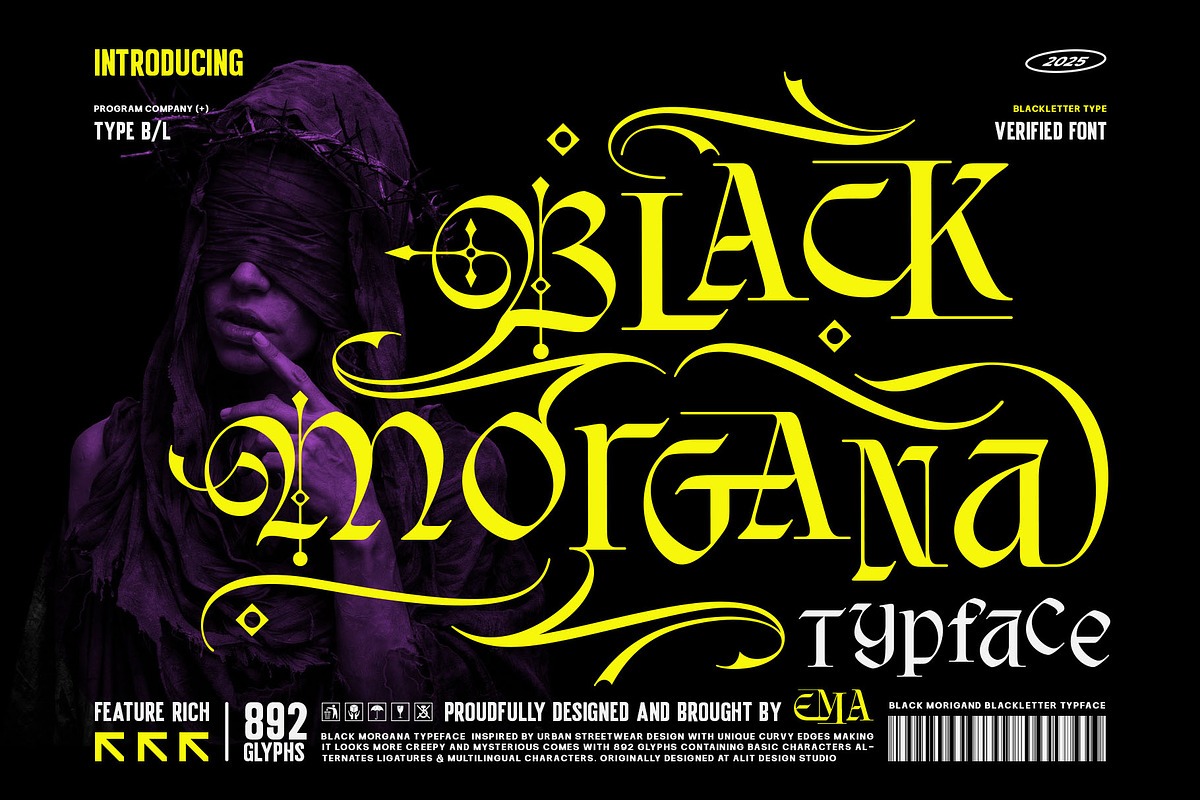
Black Morgana – Modern Gothic Font
Black Morgana – Modern Gothic Font is a versatile font designed to adapt beautifully across different design styles, offering dependable readability and balance. Inspired by the raw energy of urban streetwear and the timeless elegance of gothic blackletter typography, Black Morgana is designed to make a statement. This typeface masterfully blends harsh, sharp angles with unique, sweeping, curvy edges, creating a look that is simultaneously aggressive and deeply elegant.
Whether you are designing for a modern apparel brand, a heavy metal album cover, or edgy editorial layouts, Black Morgana delivers a captivating “chaotic beauty” that instantly grabs attention.
But Black Morgana isn’t just about looks—it is an incredibly powerful and versatile design tool. Boasting a massive 892 glyphs, this feature-rich font gives you ultimate control over your typography. With six distinct stylistic sets, you can transform simple words into complex, customized logos and wordmarks in seconds.